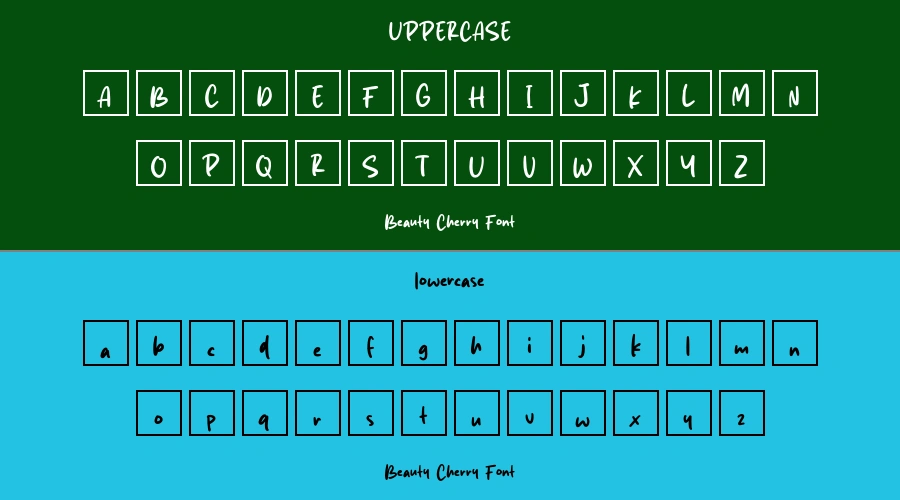
About Beauty Cherry Font
Beauty Cherry Font embodies typographic excellence through its masterful combination of contextual swashes and professional grade. Created for event branding, this typeface delivers exceptional clarity and practical utility across all applications. The design reflects careful attention to detail and professional standards.
Advanced capabilities include distinctive brush influence and versatile brand signatures, giving designers creative control. When used in corporate communications, Beauty Cherry Font exhibits remarkable performance. The harmonious balance between beak formation and user perception sets this typeface apart.